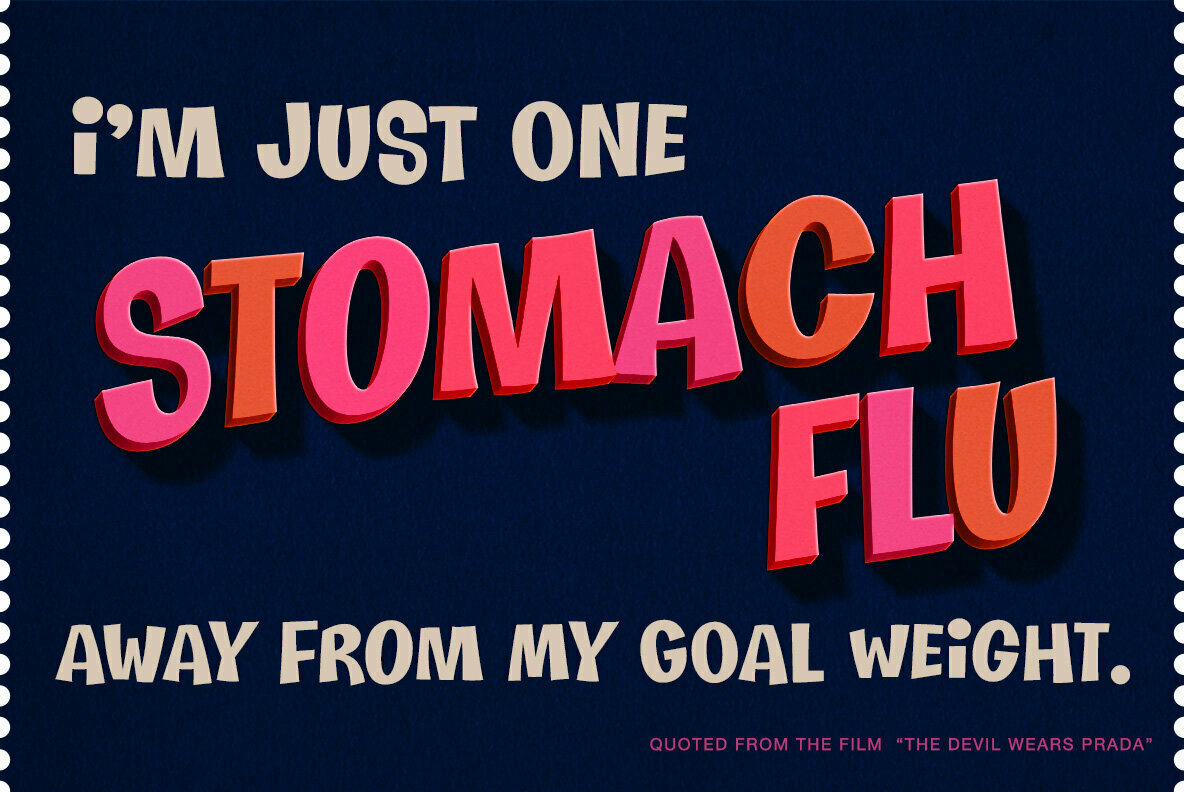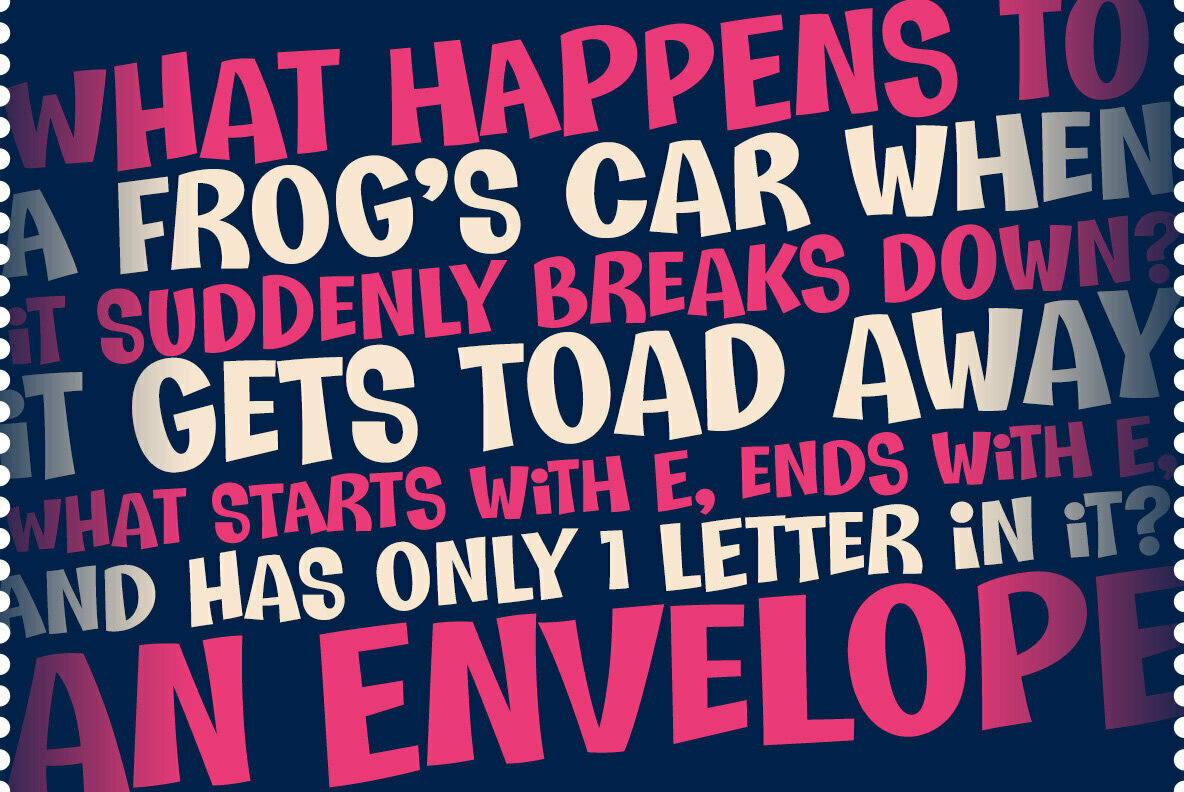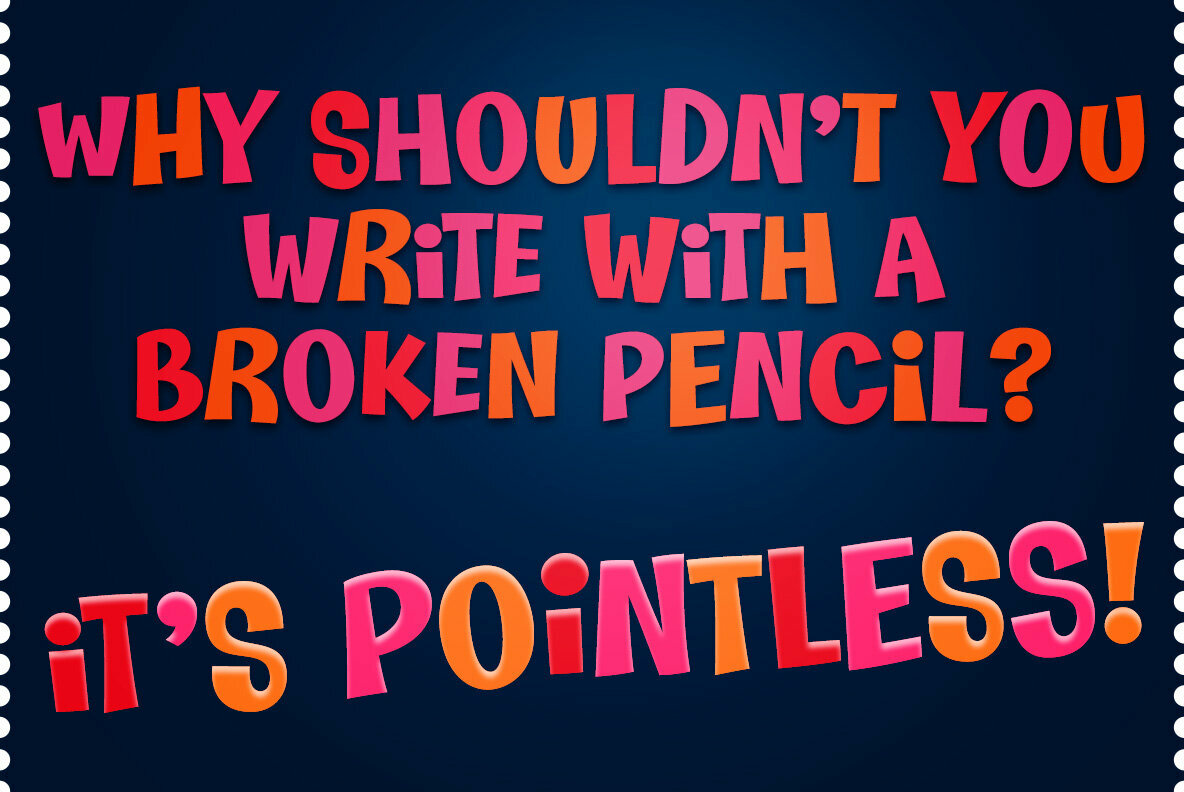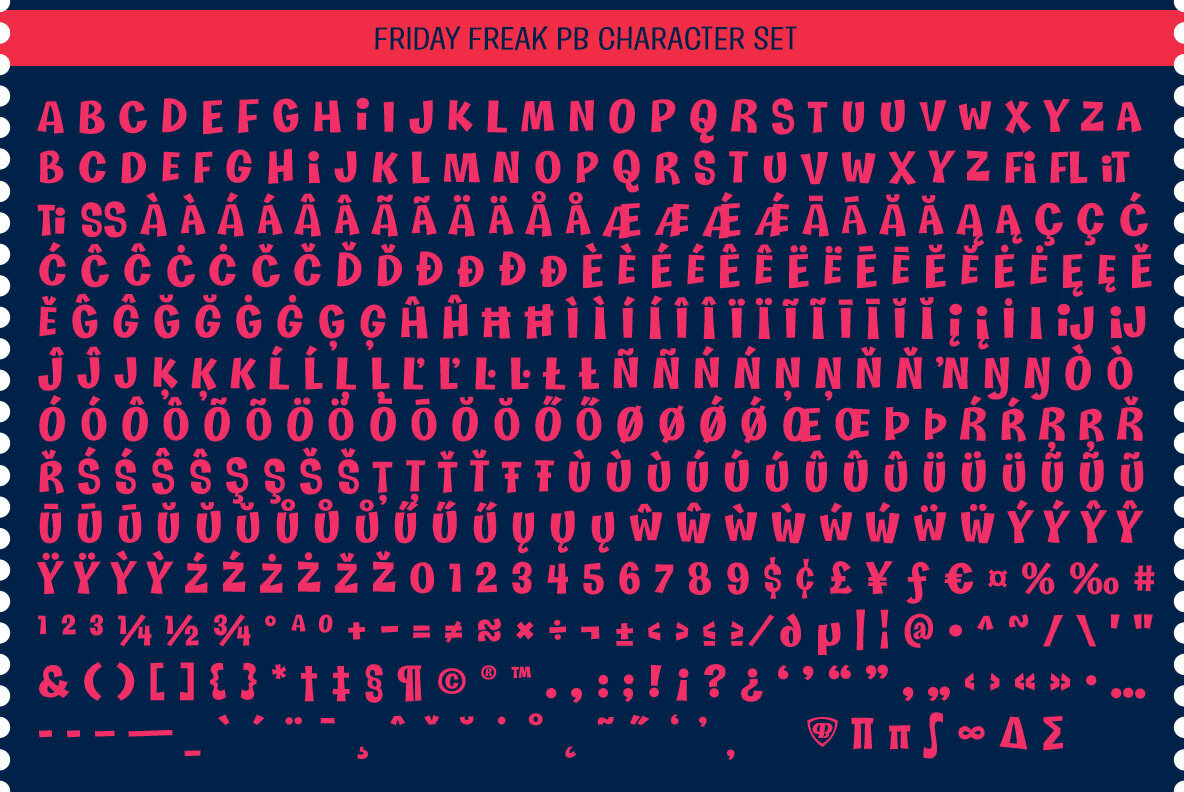
Friday Freak PB 1
Friday Freak PB is a playful font inspired by the titling of the 1976 Disney film, "Freaky Friday". This font has a slightly clumsy stumble to it, adding to its personality and appeal. From slightly weird weighting to a ligatures feature that will auto-shuffle all-caps and all-lowercase settings to have a mix of both, keeps typesetting lively.
Stir things up and get a little crazy with Friday Freak today!